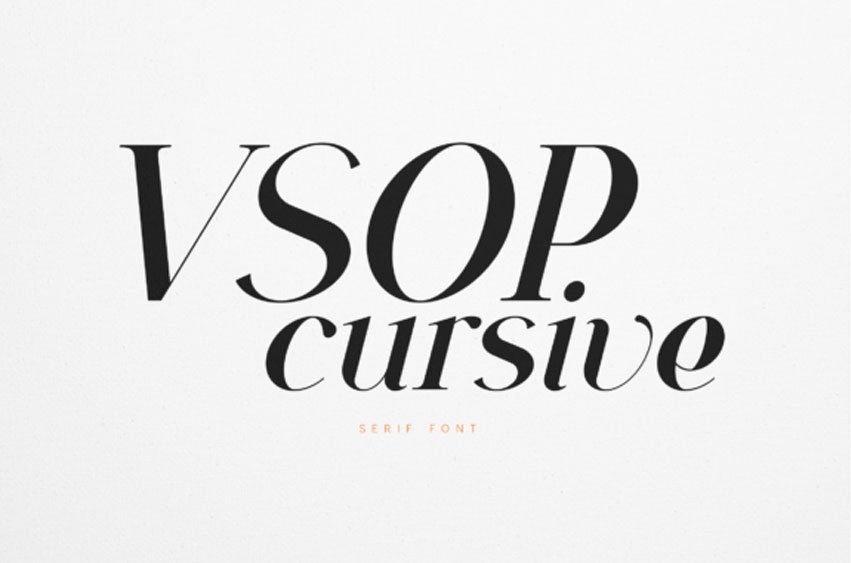
Vsop Cursive Font is a refined serif typeface that blends classic elegance with expressive cursive movement. Vsop Cursive works beautifully in editorial layouts, luxury branding, fashion design, and high-end packaging. Its elegant structure allows it to perform equally well in headlines, logos, and refined typographic compositions.
The typeface combines classic serif foundations with subtle calligraphic influence, resulting in a stylish and expressive design language perfect for projects that demand sophistication.